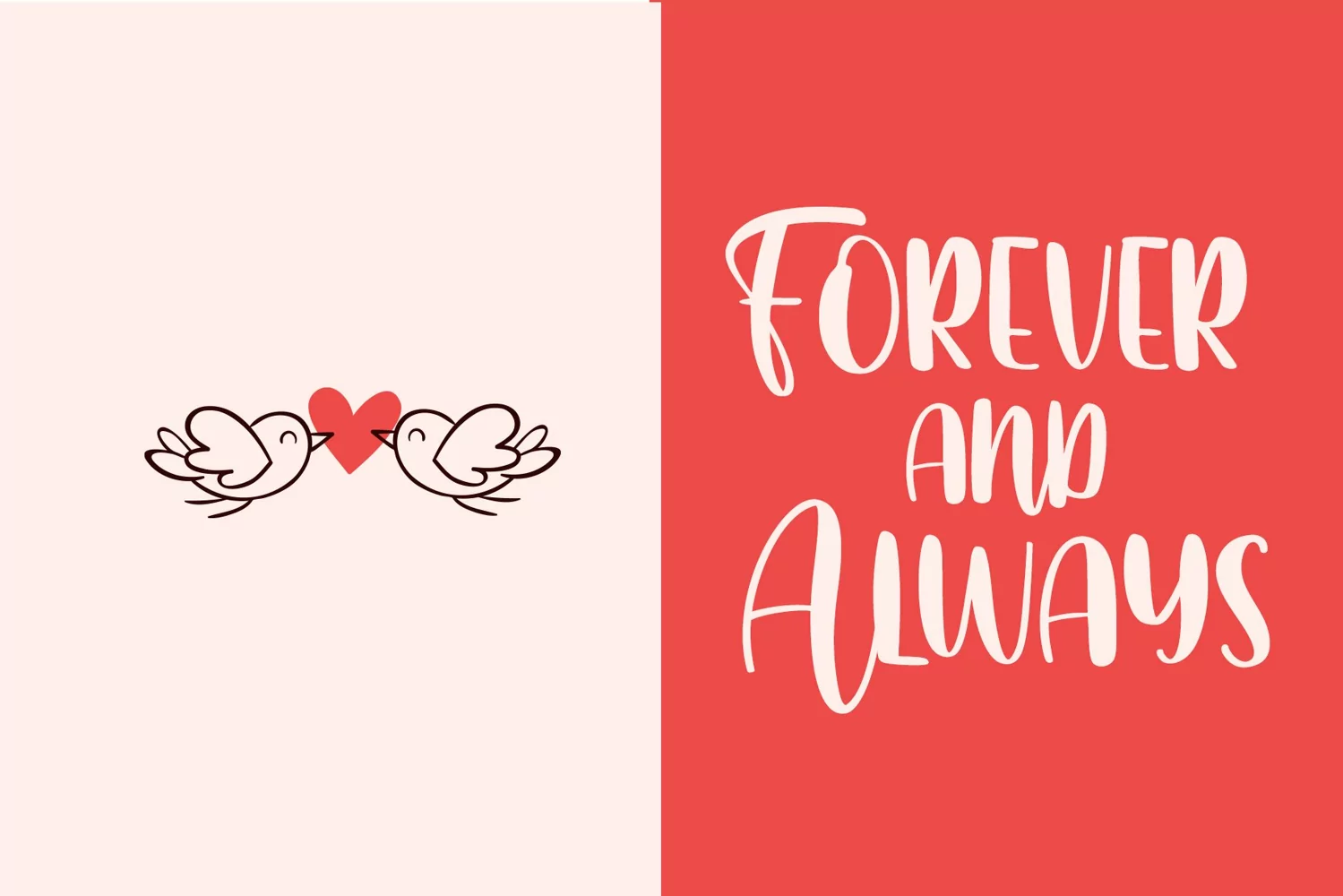
Handcraft Script is a loveley handwritten font. Whether you’re looking for fonts for social media or calligraphy scripts for DIY projects, Handcraft Script will turn any creative idea into a true piece of art!
Multilingual Support
Ligature Character